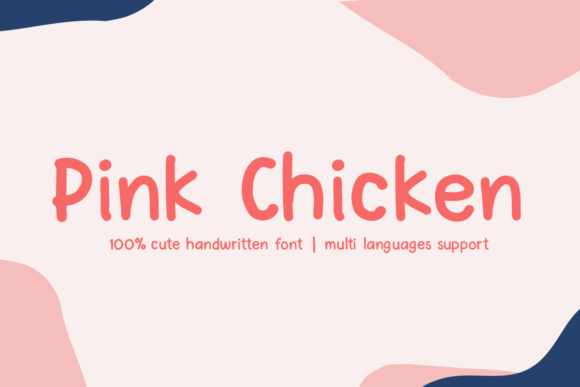
Welcome to the world of Pink Chicken Font, a captivating and enchanting script font that will add a touch of whimsy and charm to your creative projects. Born from the imagination of Scratch Design, this font embodies the spirit of joyfulness and playfulness, inviting you to explore a world where imagination reigns supreme.
Pink Chicken Font is not just a collection of letters; it's an experience. Each stroke and curve is crafted with meticulous care, exuding a sense of warmth and friendliness that will draw your readers in. Its natural and unique style makes it incredibly versatile, lending itself beautifully to a wide range of designs, from logos and branding to social media posts and wedding invitations.
With Pink Chicken Font, the possibilities are endless. Imagine crafting elegant and eye-catching logos that reflect the playful personality of your brand. Create social media posts that pop with vibrancy and charm, captivating your audience with every scroll. Design wedding invitations that radiate joy and romance, setting the tone for a magical celebration.
But the true magic of Pink Chicken Font lies in its ability to transform the ordinary into the extraordinary. Use it to design marketing materials that stand out from the crowd, grabbing the attention of potential customers and leaving a lasting impression. Create website headers that exude personality and draw visitors in, inviting them to explore the depths of your site.
Pink Chicken Font is more than just a font; it's an invitation to let your creativity soar. Its natural and unique style is a blank canvas upon which your imagination can dance. Whether you're a seasoned designer or just starting out, Pink Chicken Font is the perfect companion for your creative journey.
So, dive into the world of Pink Chicken Font and let your creativity run wild. Allow this charming and playful font to elevate your designs, adding a touch of whimsy and delight to every project you undertake.